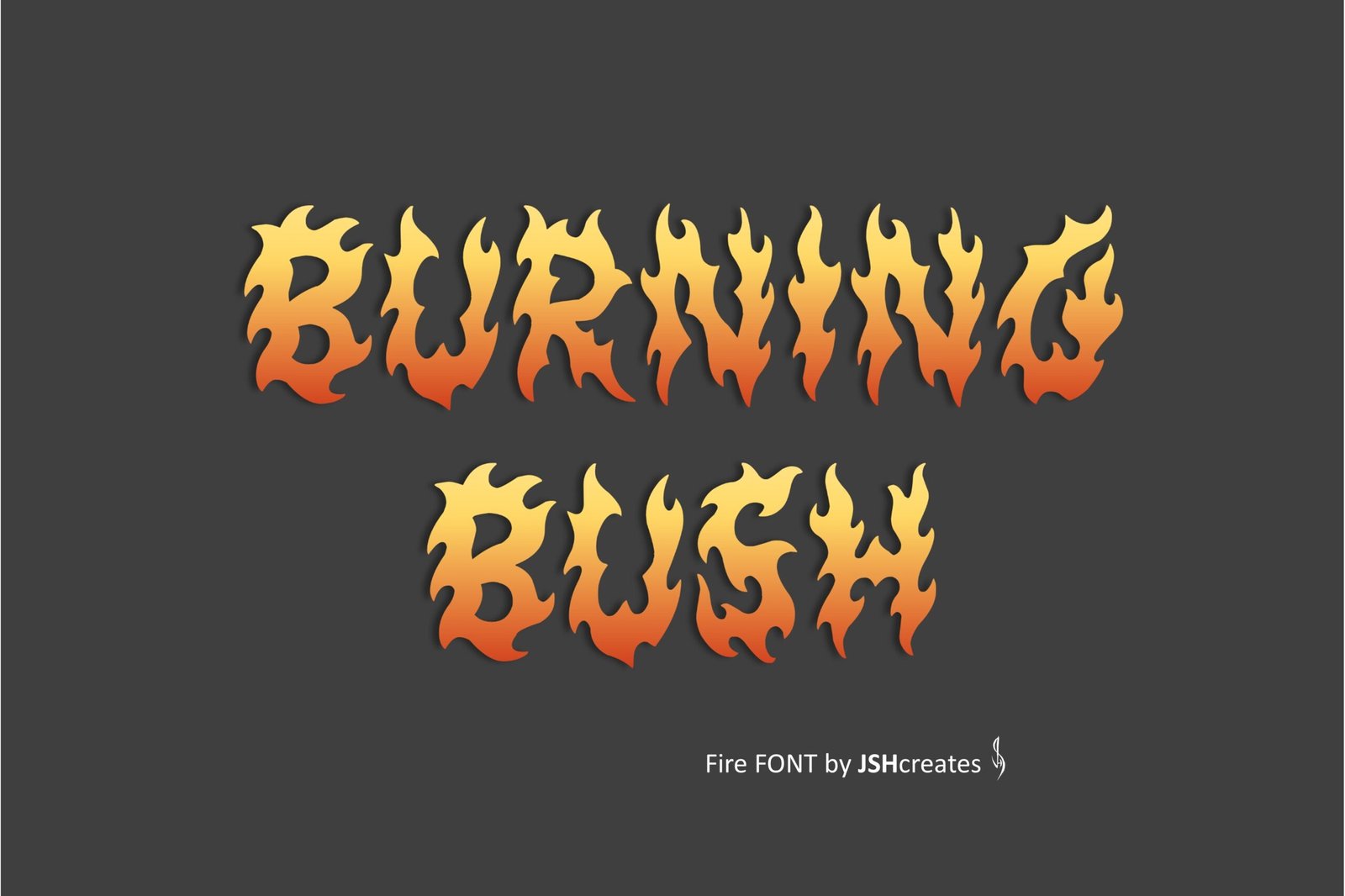
Burning Bush Font
Fire Flames hand drawn font. “Burning Bush”. Perfect for advertising and display purposes, including banners, book covers, shirts, posters, logos and much more!